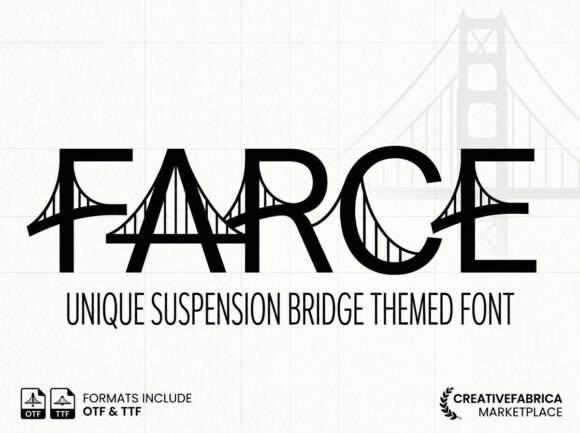
Farce is a striking decorative display font that commands attention with its bold and artistic design. Ideal for projects where visual impact matters, this font brings a unique personality to any layout. Whether you're working on logos, branding, or creative graphics, Farce offers a distinctive look that stands out in the Display category. If you're looking for a "Farce font download" or want to "download Farce font free," you'll find that this typeface is both versatile and powerful.
Design & Style Analysis
Farce exudes a strong visual presence, making it perfect for eye-catching designs. Its letterforms are meticulously crafted to balance creativity with legibility, even at larger sizes. The font's weight and spacing give it a dynamic feel, suitable for a range of applications from headlines to promotional materials. Compared to other Display fonts, Farce distinguishes itself through its intricate details and expressive character set.
Letterforms
The letterforms in Farce feature ornate flourishes and sharp angles, creating a sense of movement and energy. Each character is designed to draw the viewer's eye, making it ideal for use in high-impact scenarios like posters or social media graphics. The font’s unique structure ensures that it remains readable while still maintaining a strong artistic identity.
Weight and Spacing
Farce comes in a variety of weights, allowing designers to adjust the font's intensity based on their needs. The spacing is carefully balanced to prevent overcrowding, especially when used in larger blocks of text. This makes it a great choice for headers, banners, and other display elements where clarity is essential.
Best Uses for Farce
Farce is a versatile font that works well across multiple design disciplines. From logo creation to packaging, its bold aesthetic can elevate any project. Here are some of the best uses for Farce:
Farce for Logo Design
When designing a logo, the right font can make all the difference. Farce provides a strong, memorable look that can help your brand stand out. Its artistic flair makes it an excellent choice for businesses looking to create a unique visual identity.
Farce for Branding
Branding requires consistency and impact, and Farce delivers both. Whether you're developing a new brand or rebranding an existing one, this font adds a professional touch that resonates with audiences. Its bold style is perfect for creating a lasting impression.
Farce for Wedding Invitations
Wedding invitations demand elegance and style, and Farce offers just that. Its decorative elements add a touch of sophistication, making it ideal for formal or themed events. Pair it with simple serif fonts for a refined look that feels both modern and timeless.
Font Pairing & Combinations
Pairing Farce with other fonts can enhance its visual appeal and make it more adaptable to different design contexts. Here are a few effective combinations:
For a classic yet modern look, pair Farce with a clean sans-serif font like Helvetica or Arial. This contrast highlights the font's artistic qualities while keeping the overall design balanced. Another option is to combine it with a script font for a more elegant feel, especially in wedding or event-related projects.
"What fonts pair well with Farce" depends on the intended use. For digital marketing, a minimalist body font can provide a nice counterpoint. In print materials, a serif font might complement the decorative elements of Farce. Experimenting with different pairings allows you to find the perfect balance for your design.
Designer Notes & Tips
As a designer, it's essential to consider how Farce will perform in real-world applications. Test it in black and white to assess its readability, and check how it looks at smaller sizes. Pay attention to the spacing between letters to ensure it doesn't become cluttered in dense layouts.
Comparing "Farce vs" similar fonts can help you determine if it's the right fit for your project. While many Display fonts share a bold aesthetic, Farce stands out with its unique character set and expressive style. Whether you're working on a logo, poster, or website header, Farce offers a compelling choice for designers who want to make an impression.